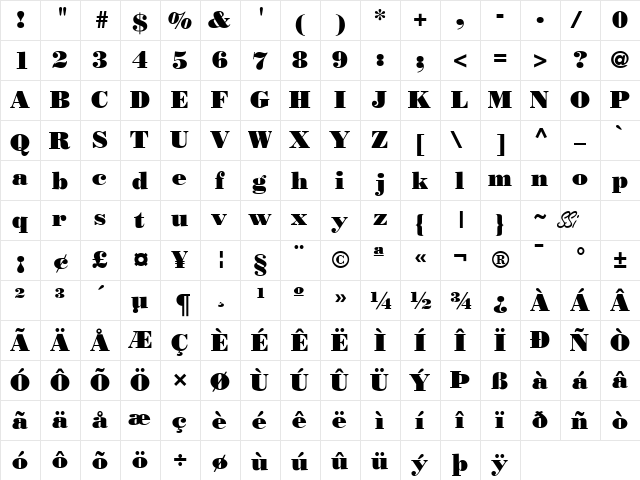
Bodoni Poster SSi Regular
Design Context for Bodoni Poster SSi Typeface
Bodoni Poster SSi takes a measured approach to typography — its balanced proportions and neutral character make it a reliable workhorse for both digital and print work.